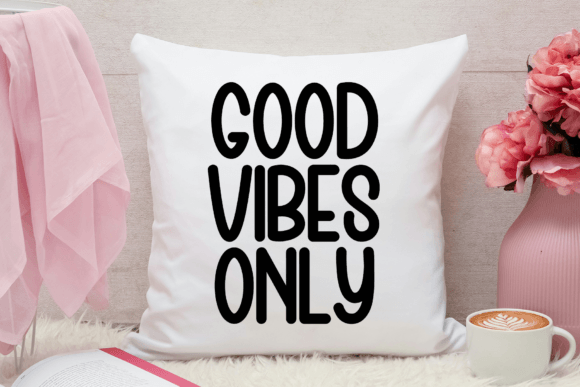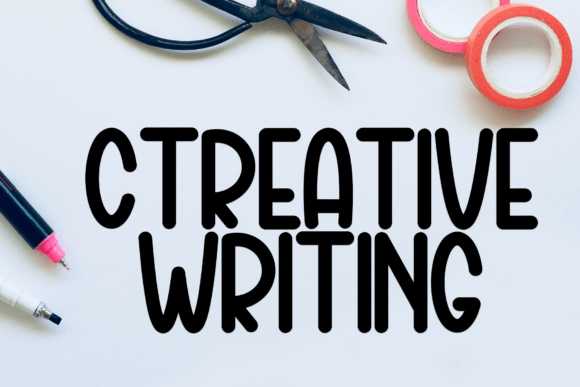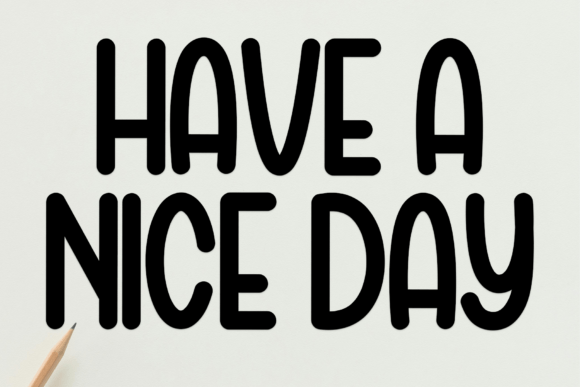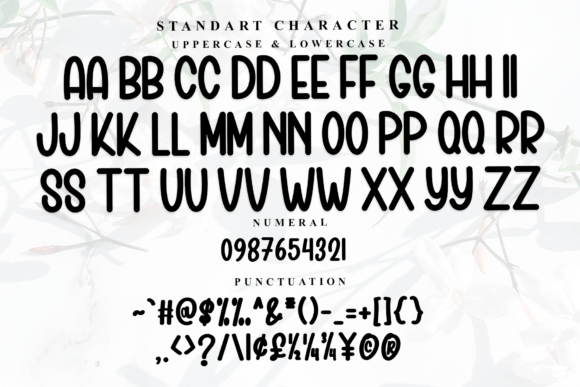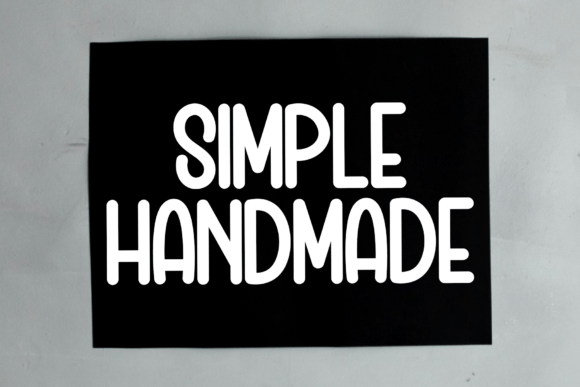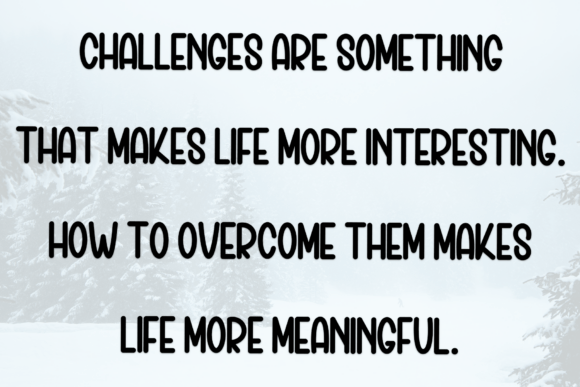
The Magic of Autumn Font: A Designer’s Delight
I’ll never forget the time I was working on a project for a cozy autumn-themed wedding, and I just couldn’t find the perfect font to capture the warmth and coziness of the season. The client was specific about wanting something that felt natural, elegant, and eye-catching. That’s when I stumbled upon the Autumn font, and it was love at first sight! ✨
An Honest Review of Autumn Font
As a designer, I’m always on the lookout for fonts that can elevate my work and make it stand out. Here’s what I love about Autumn font:
- ✅ Smooth touch and beautiful strokes that give a natural feel to your work
- ✅ Handcrafted design that adds a touch of elegance and sophistication
- ✅ Versatile and suitable for a wide range of design projects, from banners and YouTube thumbnails to logo designs and wedding invitation cards
- ✅ Perfect for creating a cozy and inviting atmosphere in your designs
Of course, no font is perfect, and Autumn font has a few small quirks:
- ⚠️ Some users might find the font a bit too ornate for certain projects
- 🤔 Limited availability of certain glyphs and stylistic alternates in some platforms
One of the standout features of Autumn font is its OpenType features and glyphs. These allow you to customize your text and add more visual interest to your designs. Here are a few tips for accessing and using these features:
The Story Behind Autumn Font
Autumn font was designed by a talented type designer who wanted to capture the warmth and coziness of the autumn season. The designer spent countless hours perfecting the font, pouring over every detail to create a truly unique and beautiful design.
| What is Autumn font? | Autumn font is a handcrafted font designed to capture the warmth and coziness of the autumn season. |
| What can I use Autumn font for? | Autumn font is versatile and can be used for a wide range of design projects, from banners and YouTube thumbnails to logo designs and wedding invitation cards. |